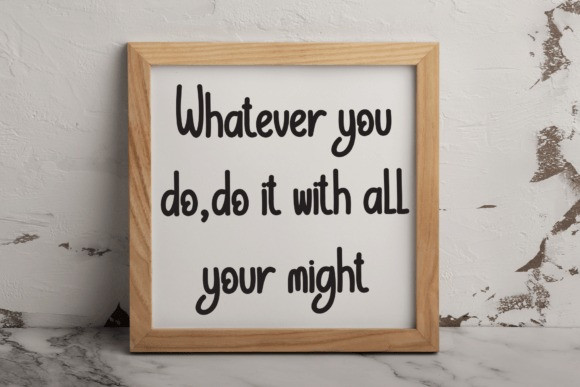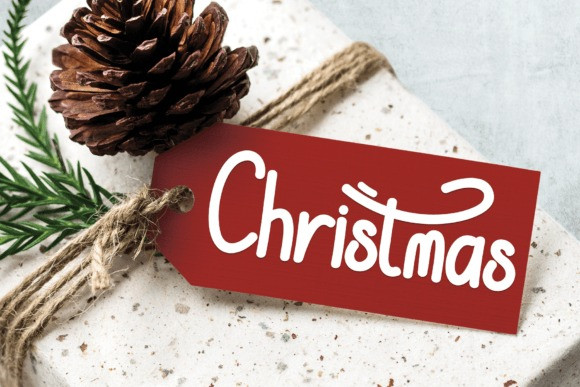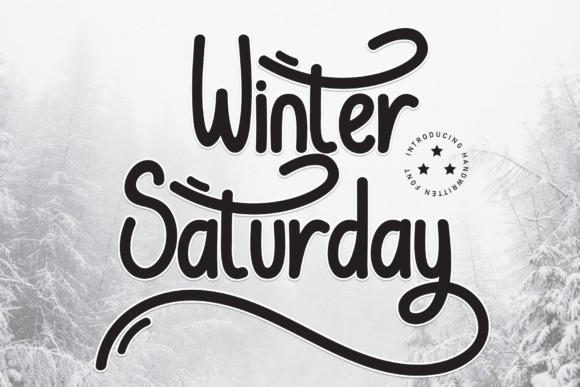
Winter Saturday Font
Winter Saturday Font is a charming handwritten font that captures the cozy and relaxed vibes of a Saturday in winter. With its warm strokes and casual elegance, this font brings a touch of comfort to your designs. Perfect for adding a personal and inviting feel to holiday cards, seasonal messages, or any project that craves a hint of winter charm. Let WinterSaturday infuse your text with the laid-back spirit of a chilly Saturday afternoon.